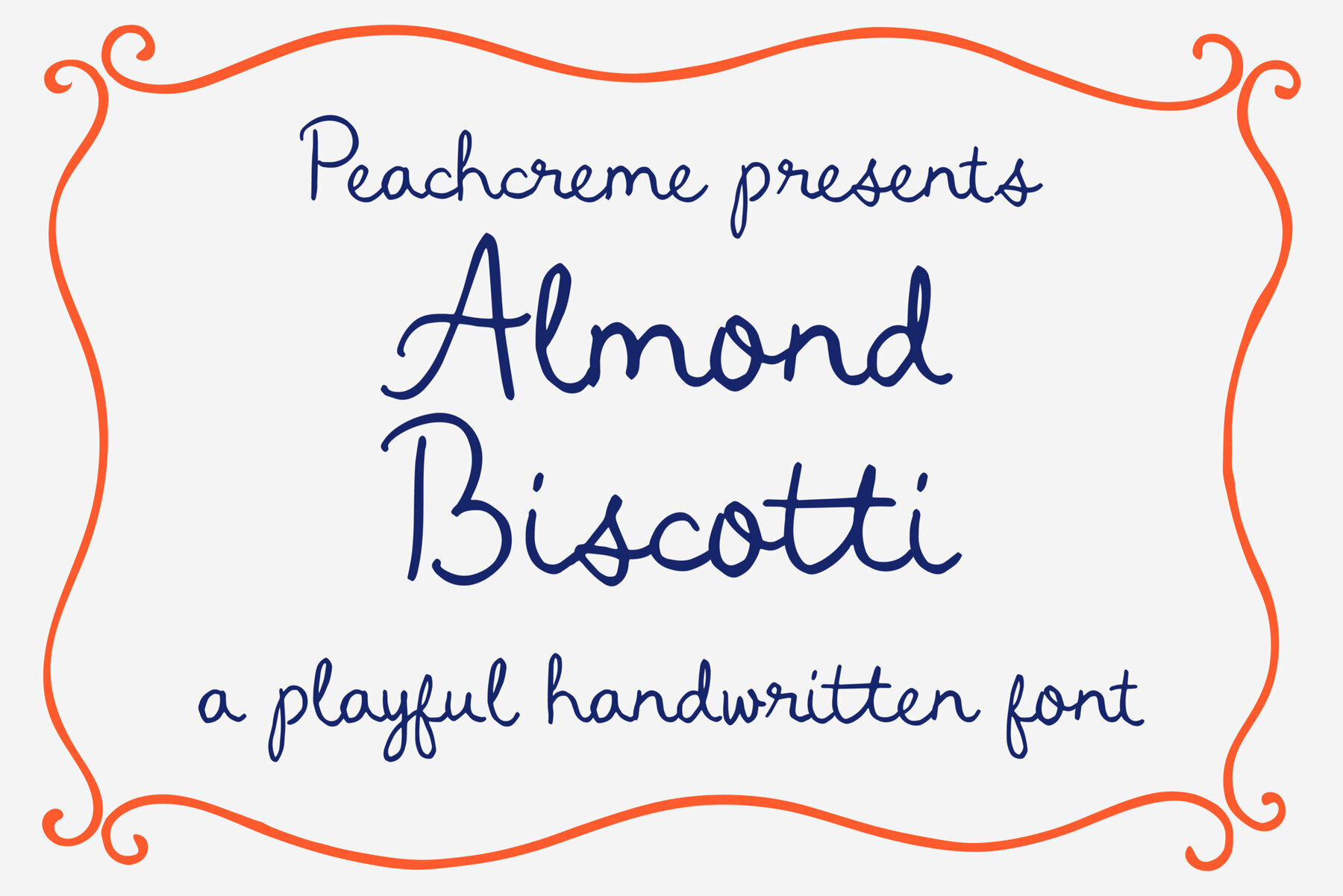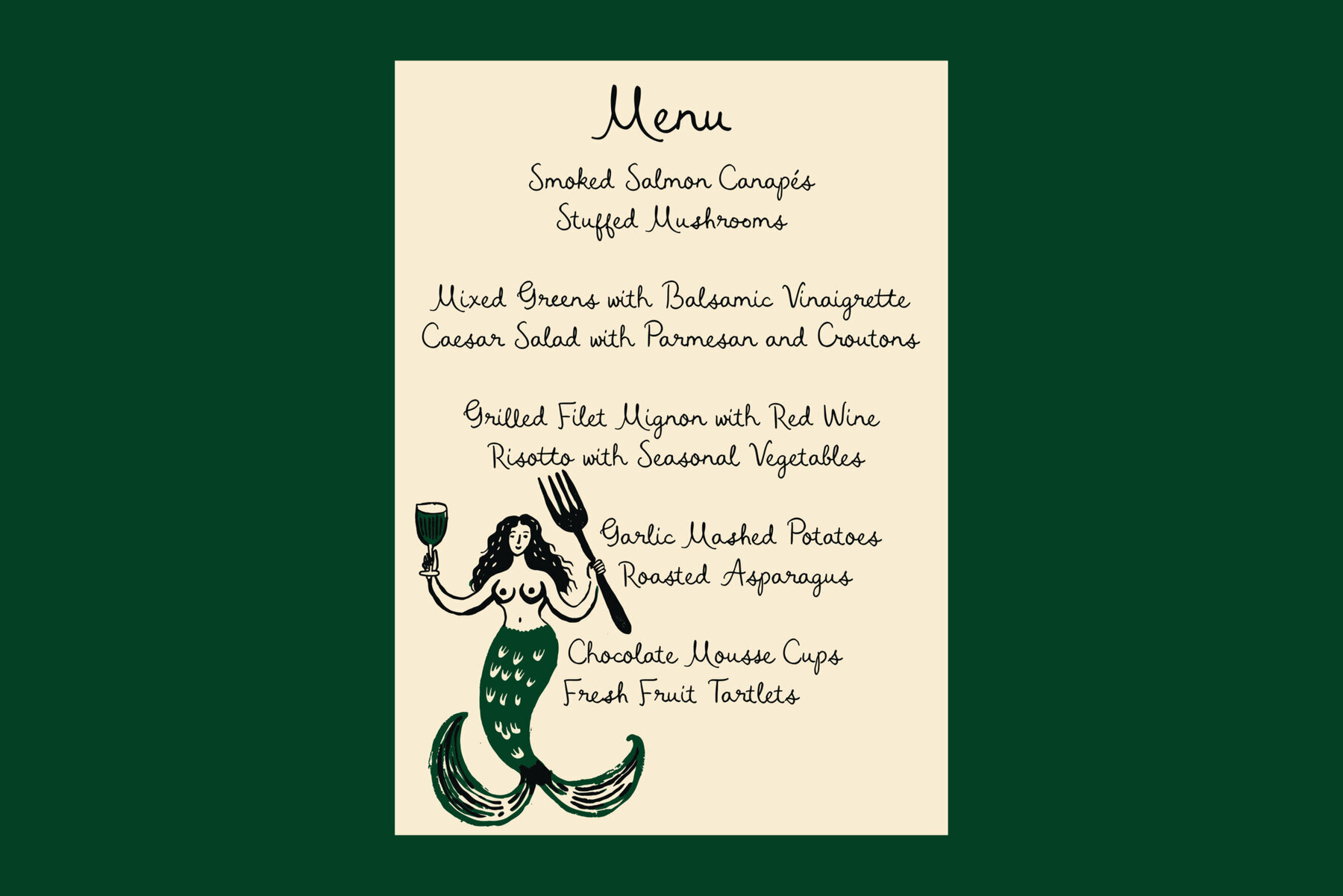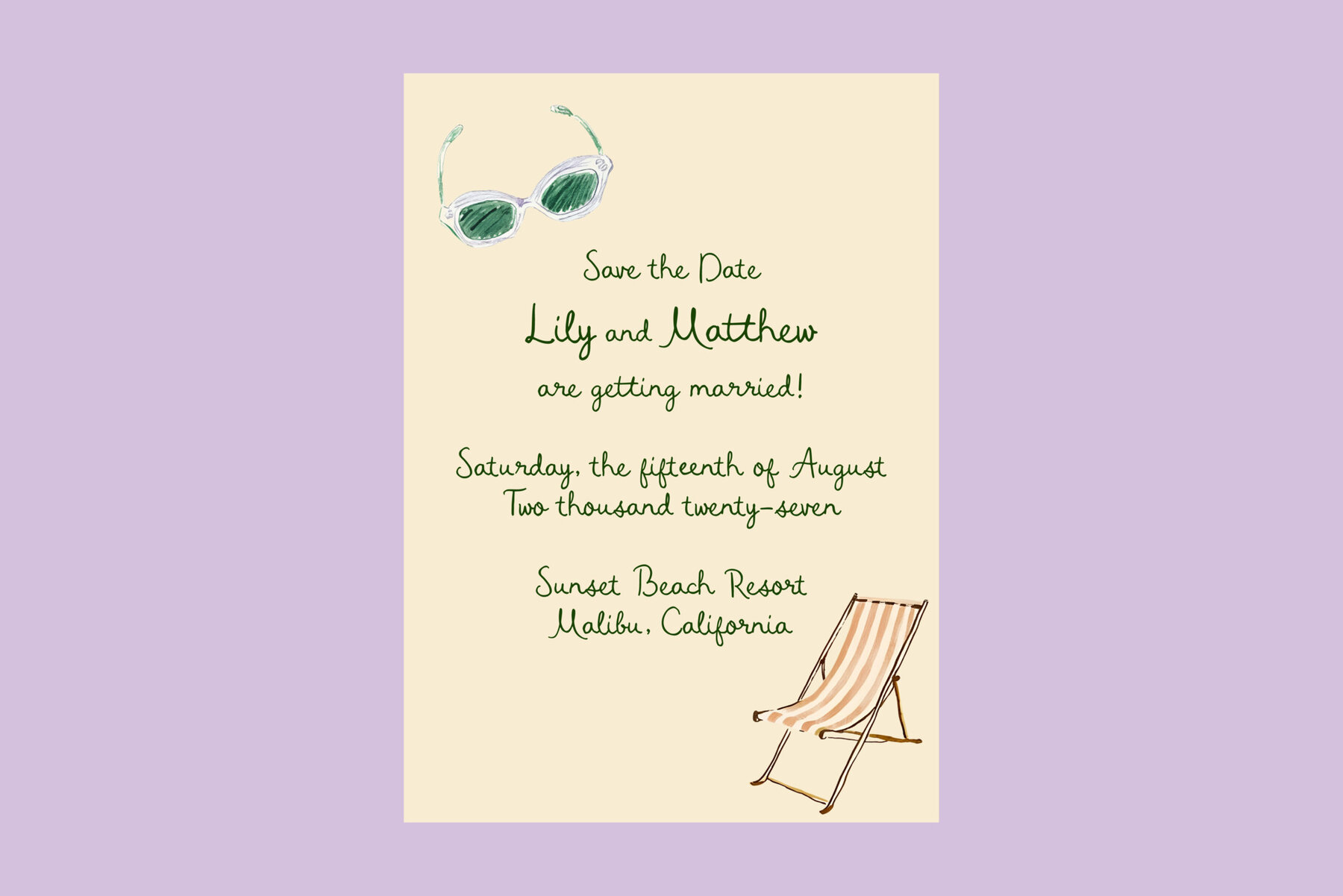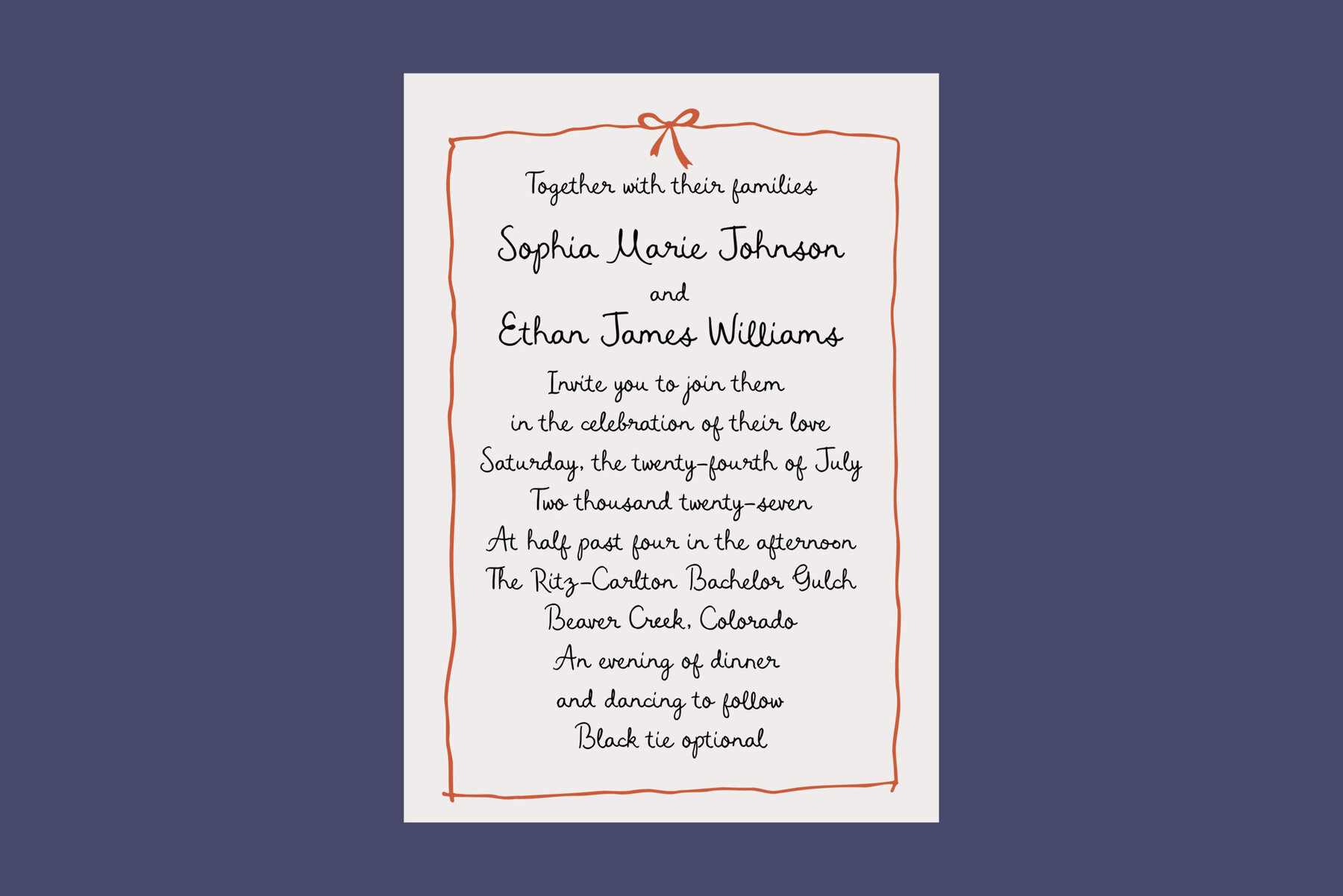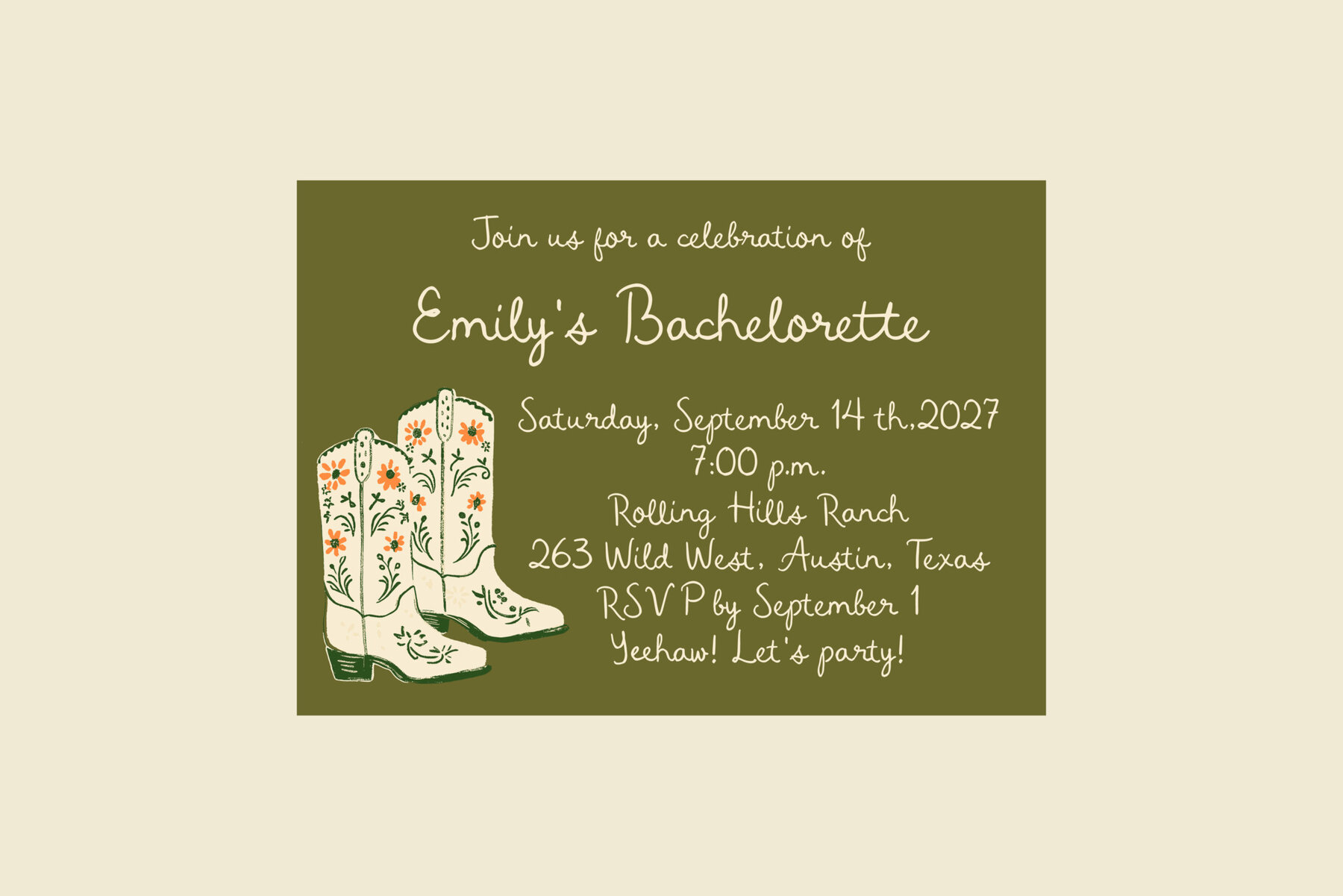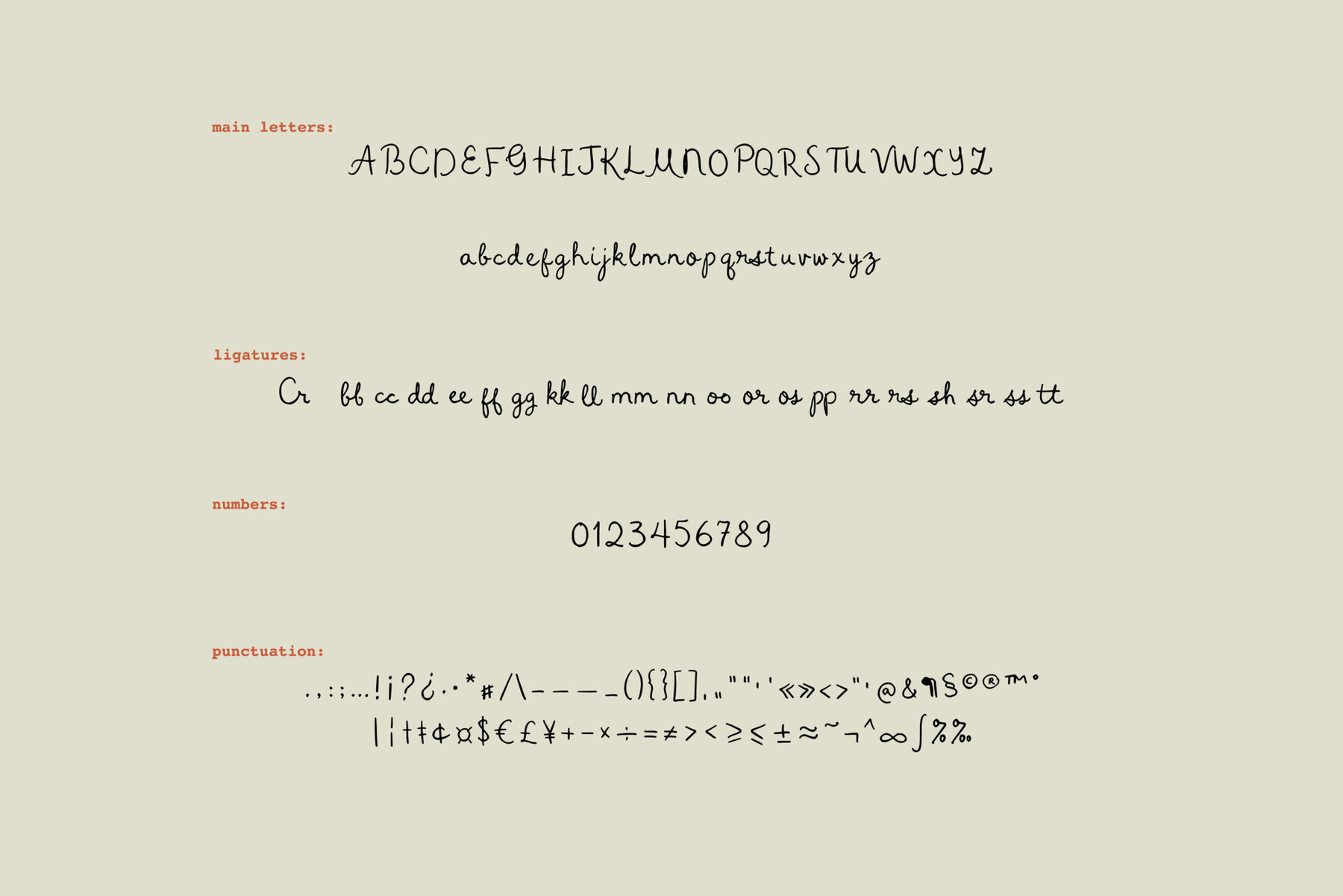
Almond Biscotti Font
Almond Biscotti
Almond Biscotti is a delightful hand-drawn font that brings a touch of whimsy and charm to any project. With its playful, irregular letter shapes, this font is perfect for infusing a personal and creative touch into your designs. Ideal for invitations, greeting cards, and branding projects, it adds a unique character that draws attention and sparks joy.
This font stands out for its handcrafted feel, evoking a sense of originality and warmth. Whether you're working on a digital or print project, Almond Biscotti offers versatile usage that complements a wide range of artistic endeavors. Its unique and engaging style makes it an excellent choice for designers looking to convey a personable and artistic aesthetic.